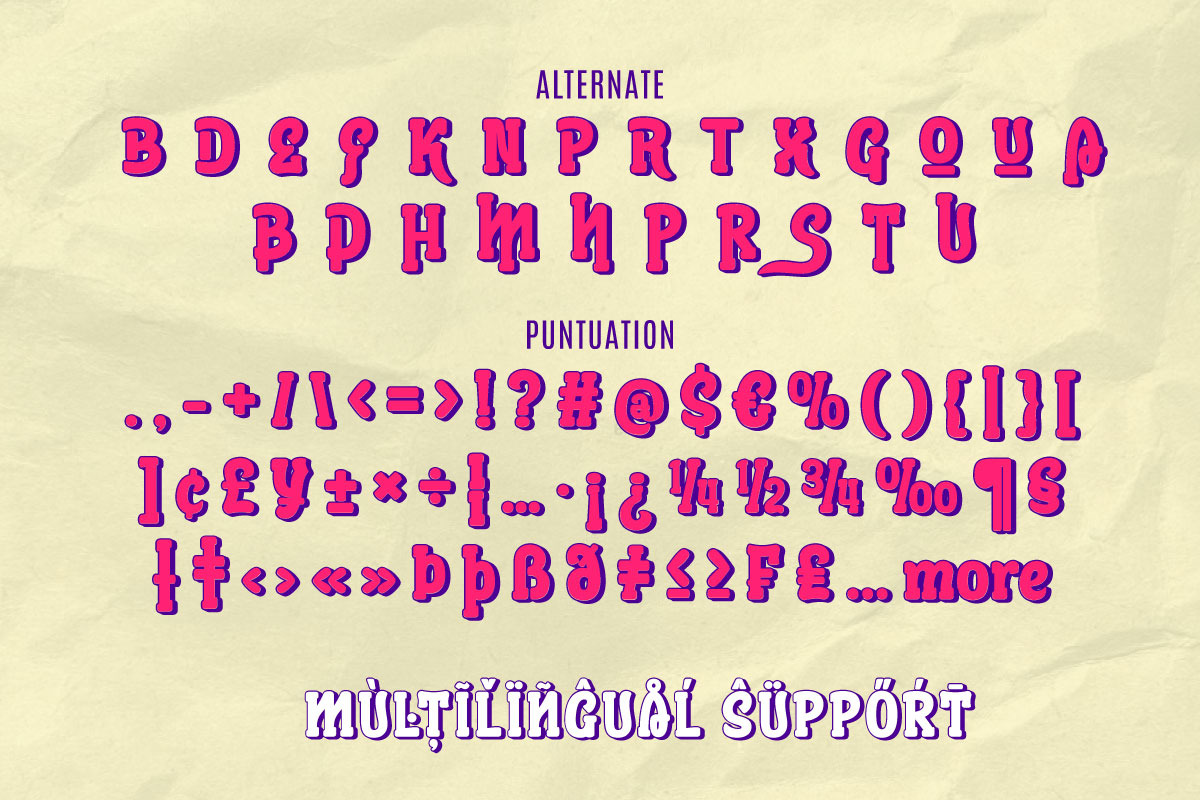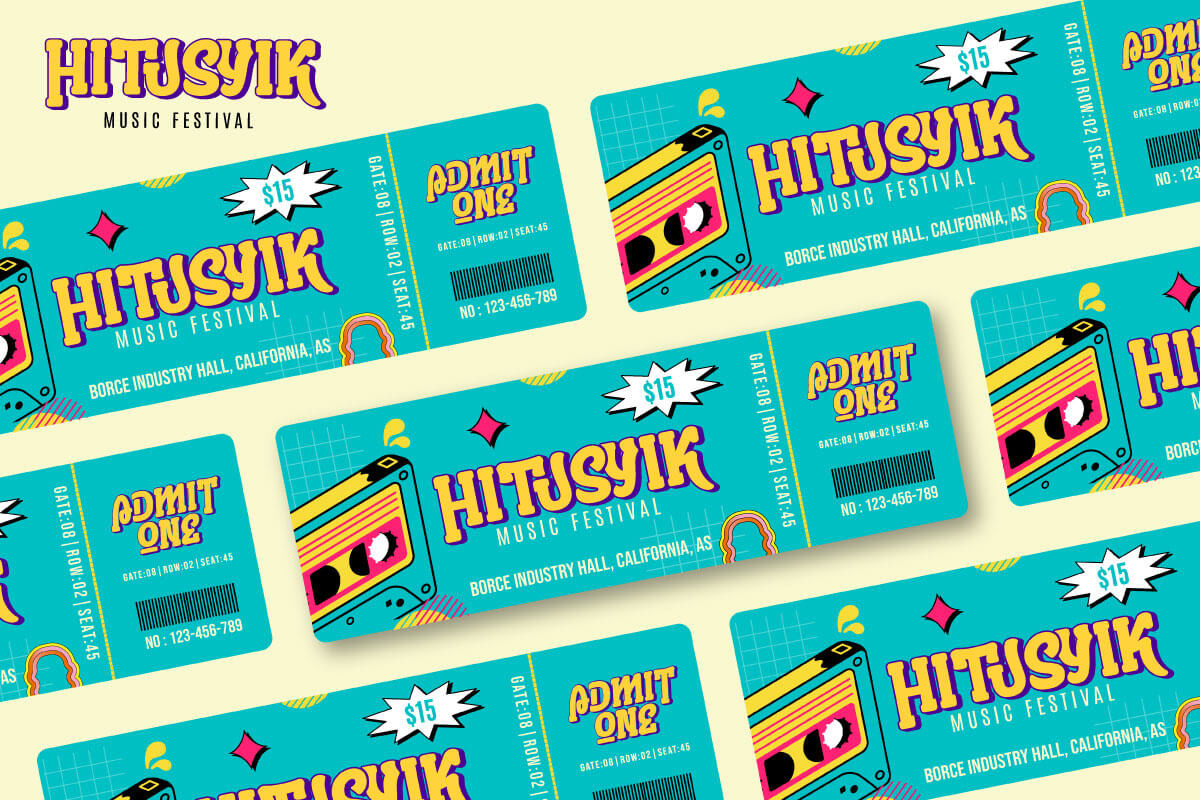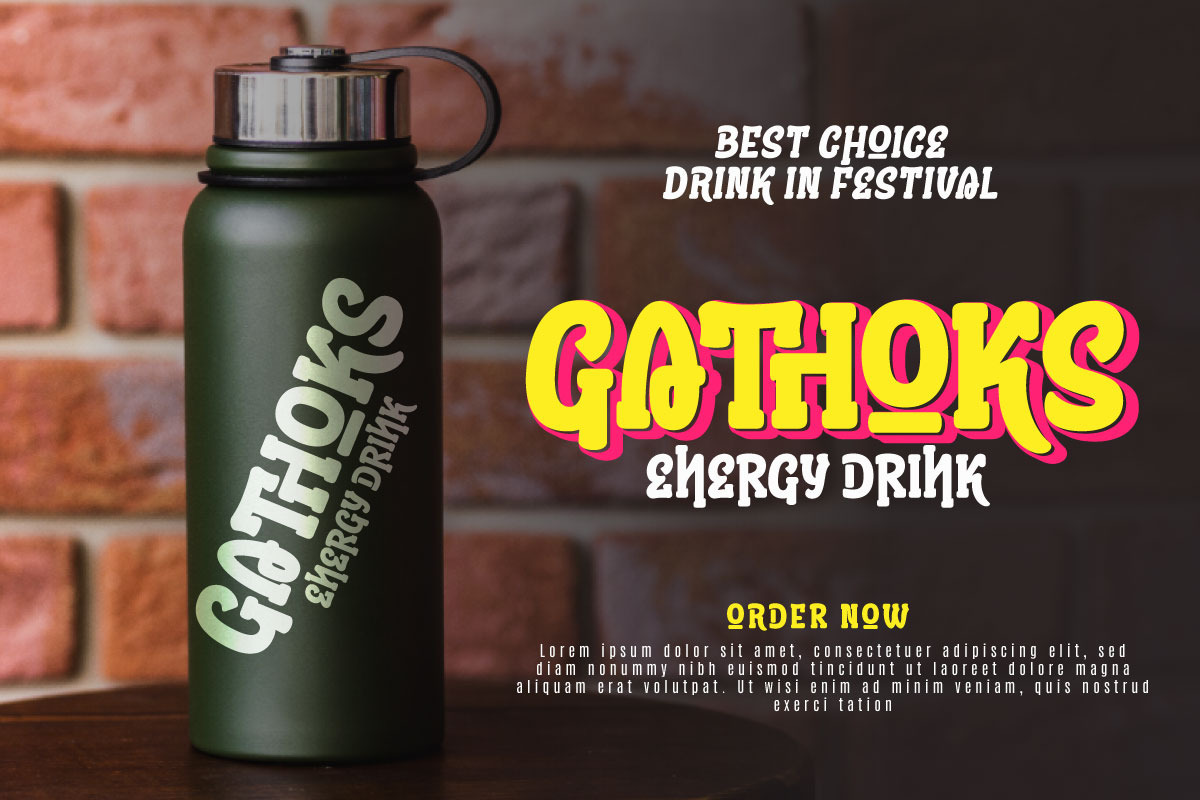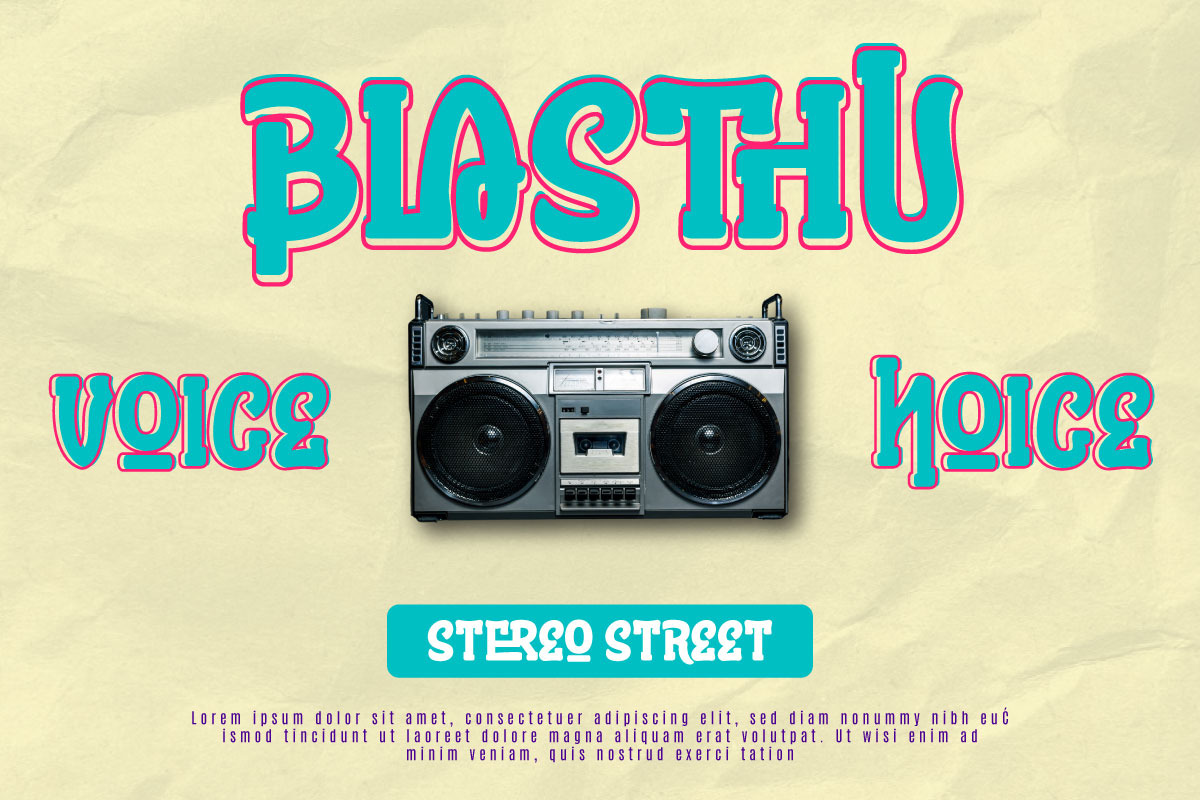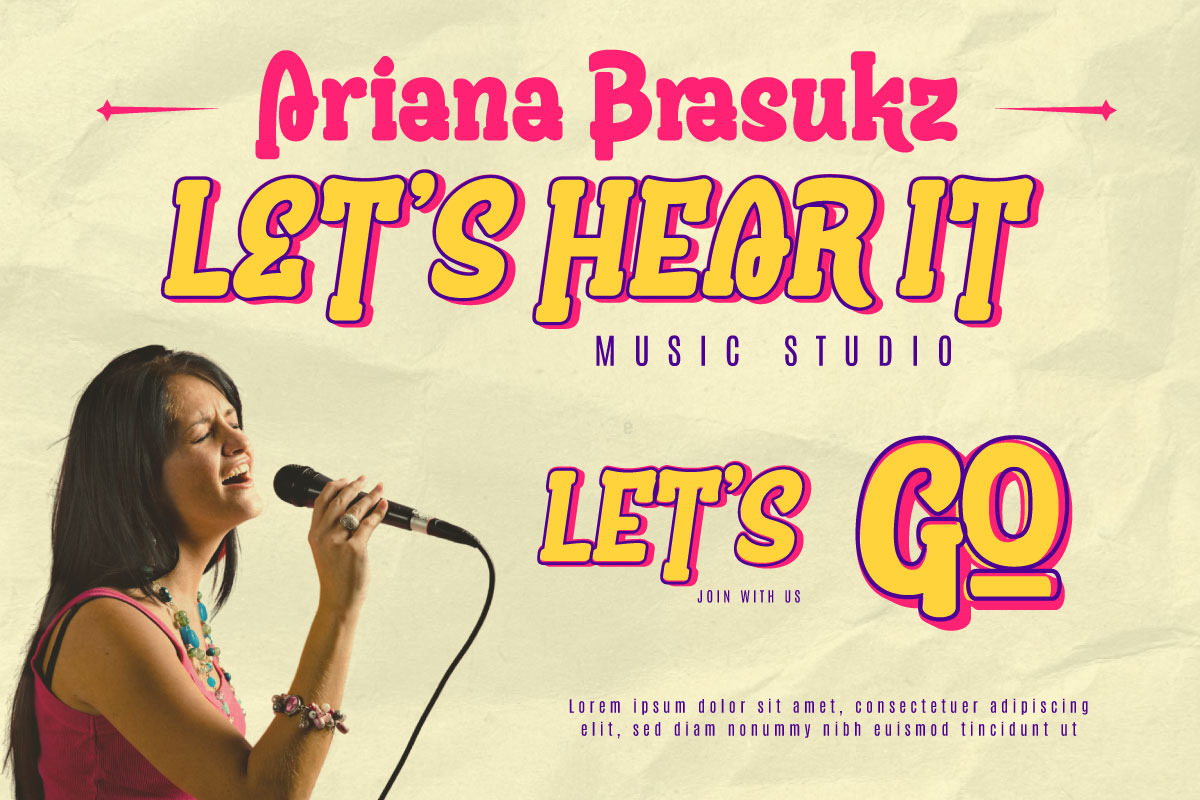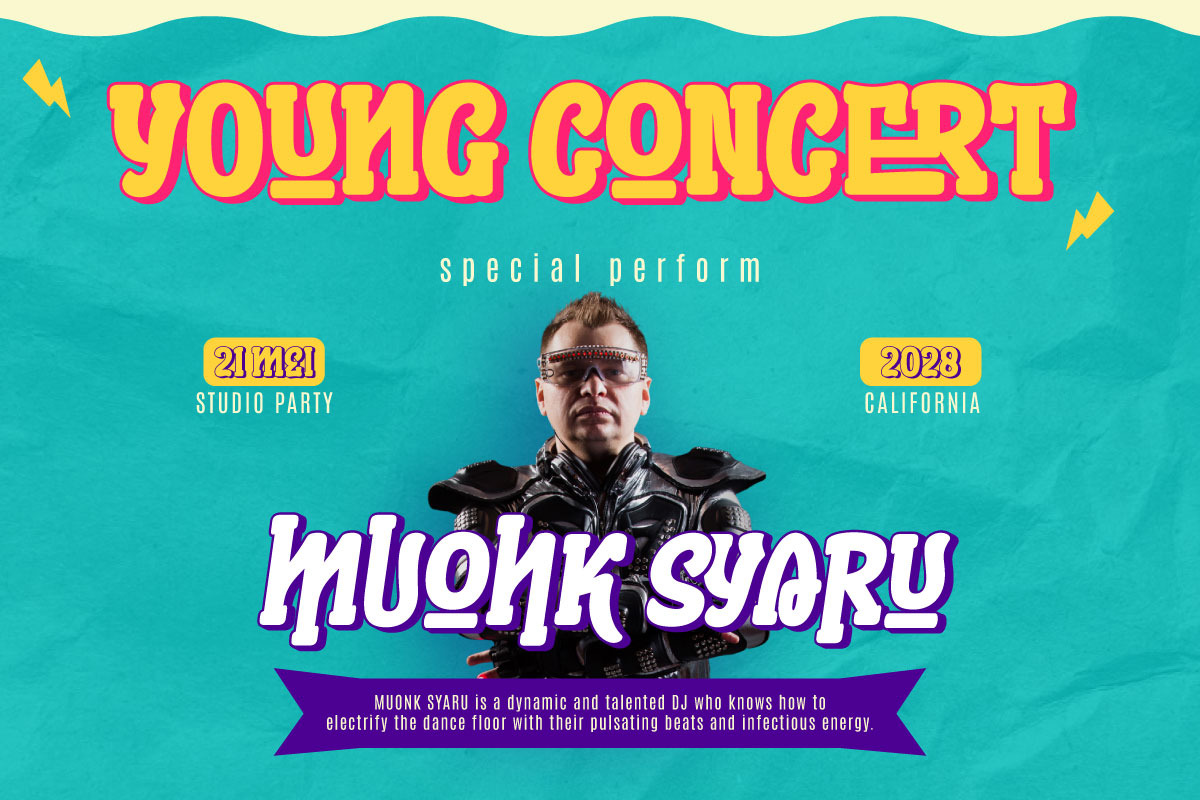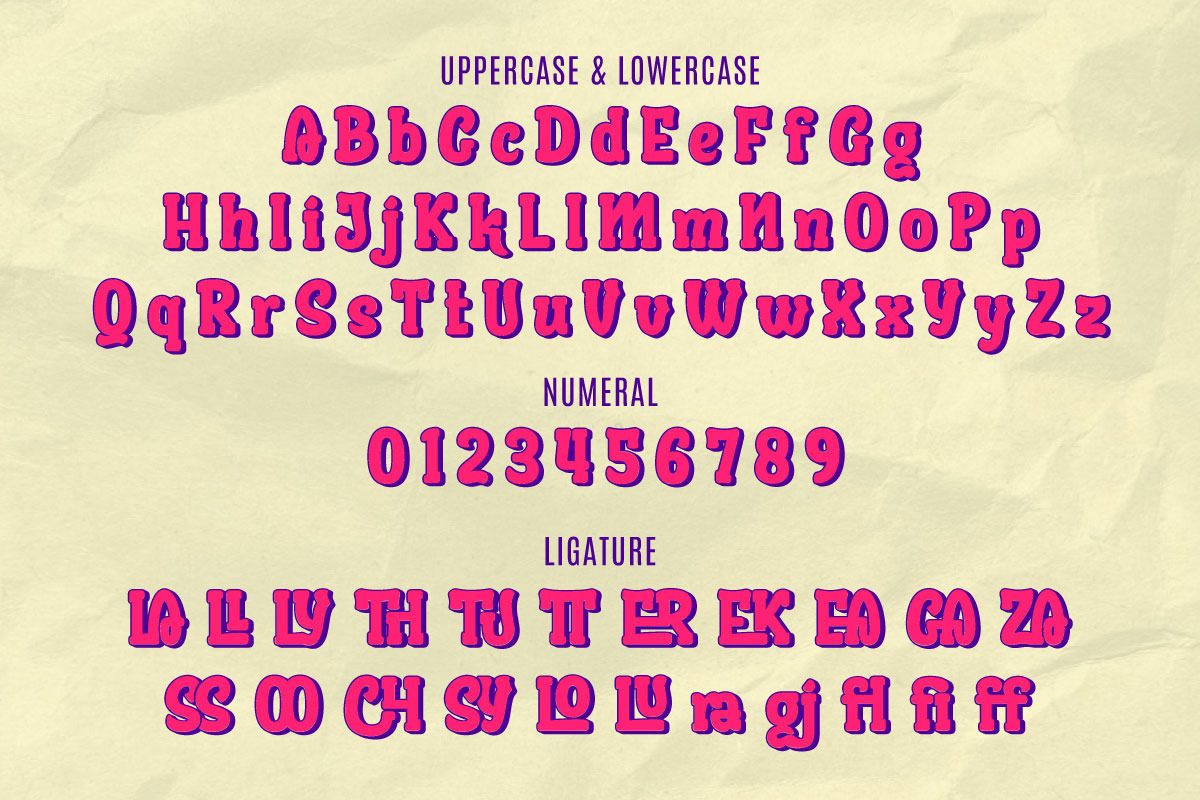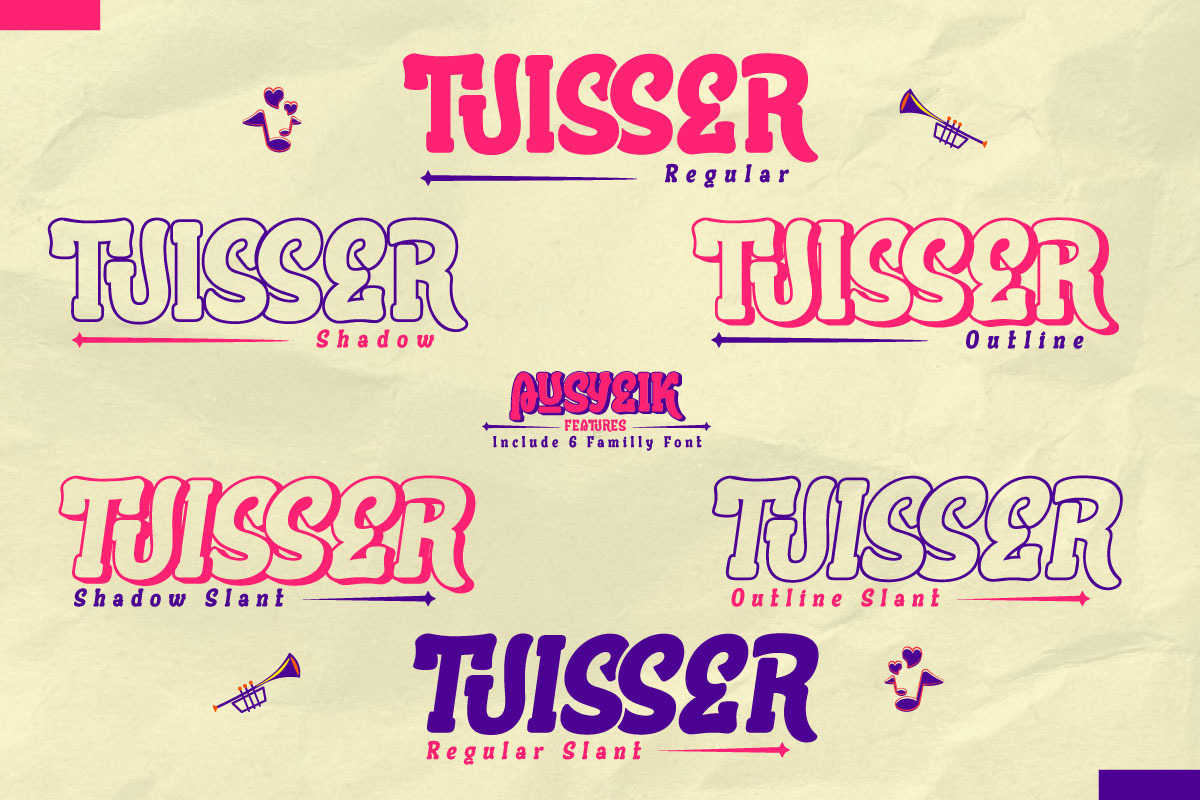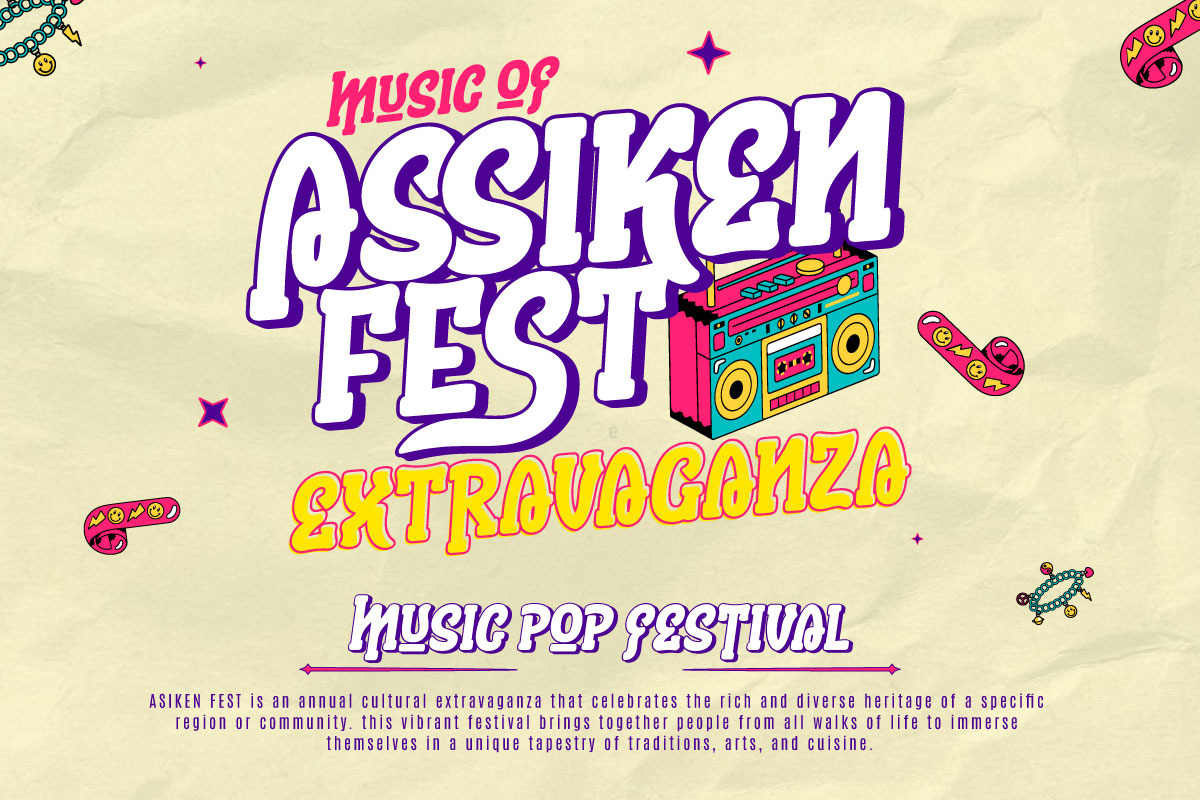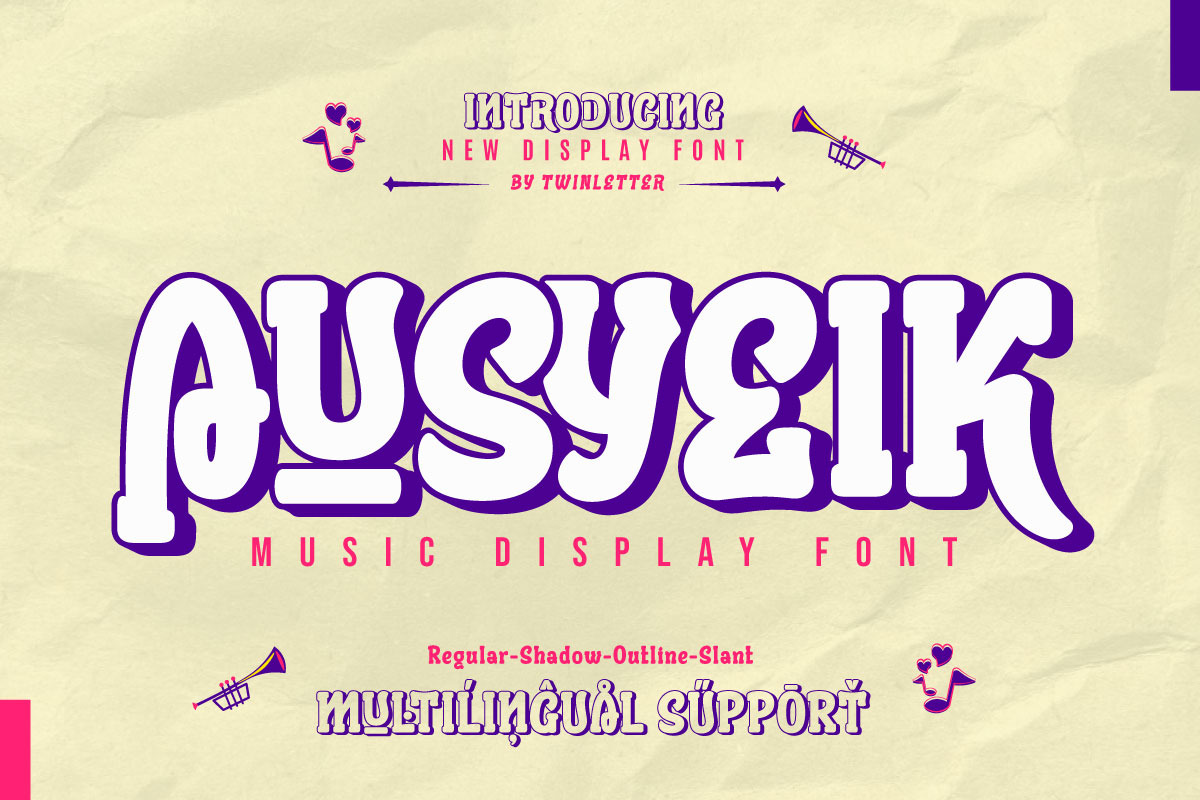
Ausyeik - Display Font
The Ausyeik font is a charming work of typographic art, designed specifically for projects that require a music-style display, festivals, and special events. The beauty that radiates from each character brings a magical touch to your designs.
With a font family that includes regular, shadow, outline, and Slant, Ausyeik provides maximum flexibility for creating unique and memorable messages. But what makes it truly stunning are features like ligatures and alternates that give each letter an artistic and exclusive touch. This gives you unlimited creative freedom to come up with amazing designs.
This font supports multiple languages, making it the perfect choice to reach a global audience. With each letter, Ausyeik brings an unrivaled feeling of euphoria and joy, bringing the atmosphere of festivals and special events to life in your designs.
So, if you are looking for a font that celebrates the musical style in all its glory, Ausyeik is the best choice that you will never regret.